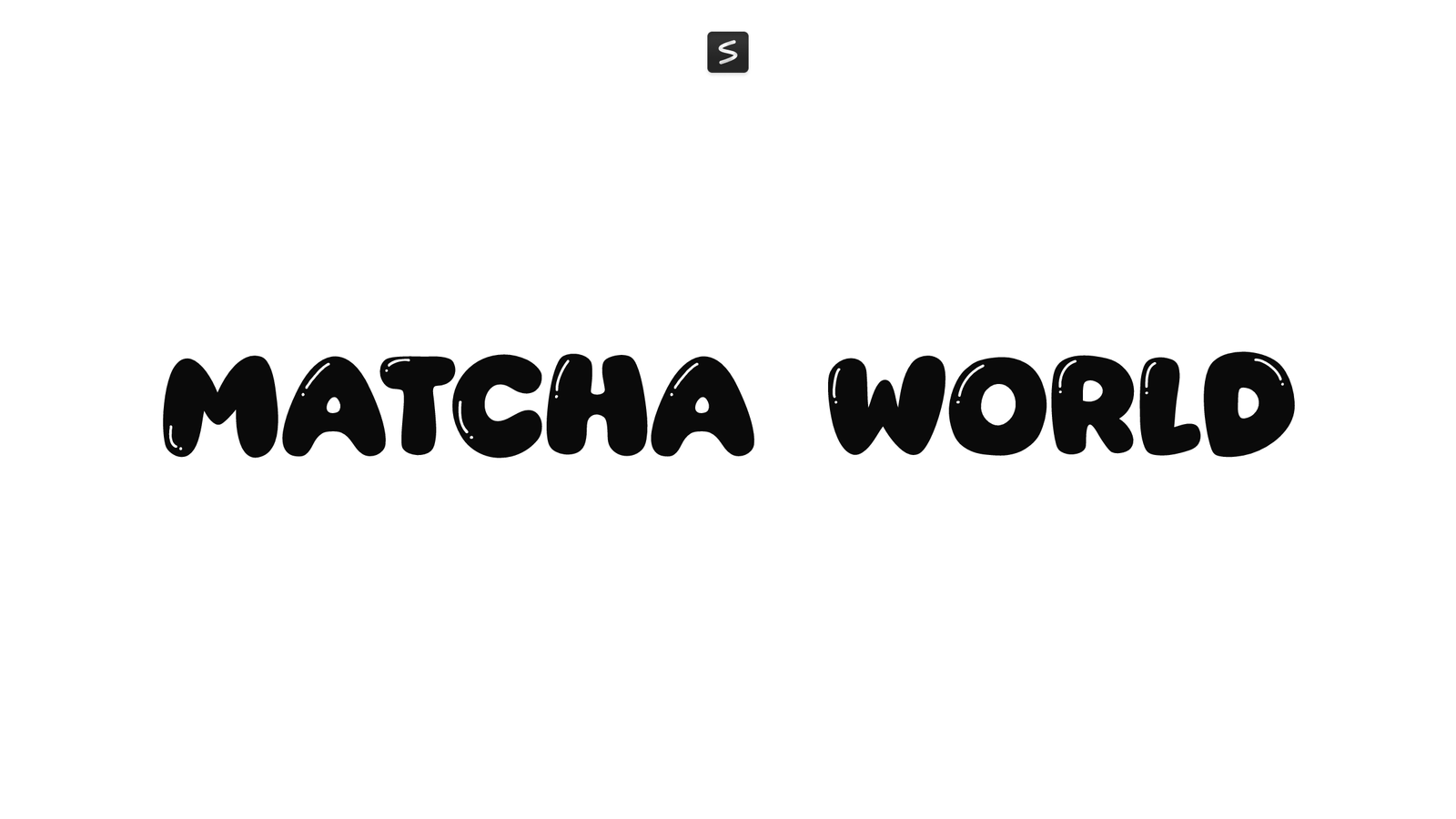
Matcha World is a chunky rounded display typeface by Khurasan™, built on soft, generous curves and thick strokes that feel approachable and playful. The design leans into a cartoon-inspired aesthetic with a friendly, almost plush quality that works well for cheerful, youth-oriented projects.
Its rounded letterforms and substantial weight give it a distinct personality without feeling heavy or clumsy. The font reads clearly at larger sizes and maintains its character charm across headlines, packaging, and branding applications. It pairs naturally with projects that need warmth and accessibility rather than formality or edge.
Matcha World fits well in children’s book covers, game interfaces, playful branding, social media graphics, posters, and any design space where a softer, more inviting tone matters. The rounded construction keeps it legible while the chunky proportions ensure it commands attention.